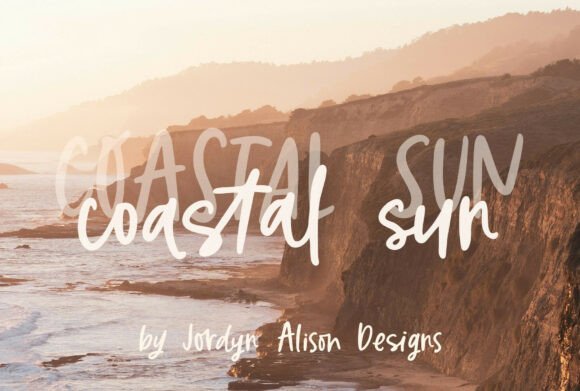
Find Your Creative Escape with the Coastal Sun Font
There’s something about sitting on a beach at sunset, feeling the warmth of the sun on your skin and the ocean breeze in your hair, that sparks creativity and sets your imagination free. It’s moments like these that remind us of the beauty and simplicity of life, and the need for fonts that capture that essence in our designs.
Enter Coastal Sun Font, a relaxed handwritten font that embodies the carefree spirit of coastal living. With its smooth, flowing strokes and naturally casual rhythm, this font is perfect for designers looking to add a touch of warmth and personality to their projects. Whether you’re working on a logo, social media post, or travel blog, the Coastal Sun Font is sure to bring a sense of freedom and positivity to your design.
Key Features of Coastal Sun Font
- Unique Characteristics: Coastal Sun Font features a unique, hand-drawn design with a warm, sun-kissed feel, making it ideal for beach-inspired and summer-themed projects.
Coastal Sun Font Review
As a designer, I was excited to dive into the Coastal Sun Font and see what it has to offer. Overall, I think it’s a great addition to any designer’s toolkit. Here’s a breakdown of what works well and where it falls short:
- Relaxed, beachy vibe: The Coastal Sun Font perfectly captures the feeling of a warm summer day by the ocean.
- Legibility: The font is easy to read, even at smaller sizes, making it perfect for body text or signage.
- Style versatility: Whether you’re going for a classic, laid-back look or a more modern, trendy aesthetic, Coastal Sun Font fits right in.
- Limited weight options: While the font has a nice range of styles, it could benefit from more weight options to give designers more flexibility.
- Not ideal for formal text: Due to its relaxed, casual feel, Coastal Sun Font may not be the best choice for formal documents or serious content.
Overall, I think the Coastal Sun Font is a solid choice for designers looking to add a touch of beachy charm to their projects. While it may have some limitations, its strengths make it a great addition to any font collection.
Tips for Getting the Most Out of Coastal Sun Font
Use Coastal Sun Font for designs that evoke a sense of warmth and relaxation, such as beach-inspired graphics or summer-themed promotions.
Combine Coastal Sun Font with other beach-inspired elements, such as palm trees or seashells, to create a cohesive design.
Experiment with different font sizes and styles to add visual interest to your design.
Coastal Sun Font is ideal for:
Beach-inspired graphics and designs.
Summer-themed promotions and advertising.
Travel and tourism branding.
Alternatives to Coastal Sun Font
Lato is a modern sans-serif font that is perfect for creating a clean and minimalist look. It’s a great alternative to Coastal Sun Font for designs that require a more neutral and elegant feel. Lato has a similar feel to Coastal Sun Font but with a more geometric and sleek appearance.
Playfair Display is an elegant and luxurious serif font that is ideal for designs that require a touch of sophistication. It’s a great alternative to Coastal Sun Font for designs that need a more formal and refined look. Playfair Display has a more dramatic and ornate feel compared to Coastal Sun Font, making it suitable for high-end branding and marketing materials.